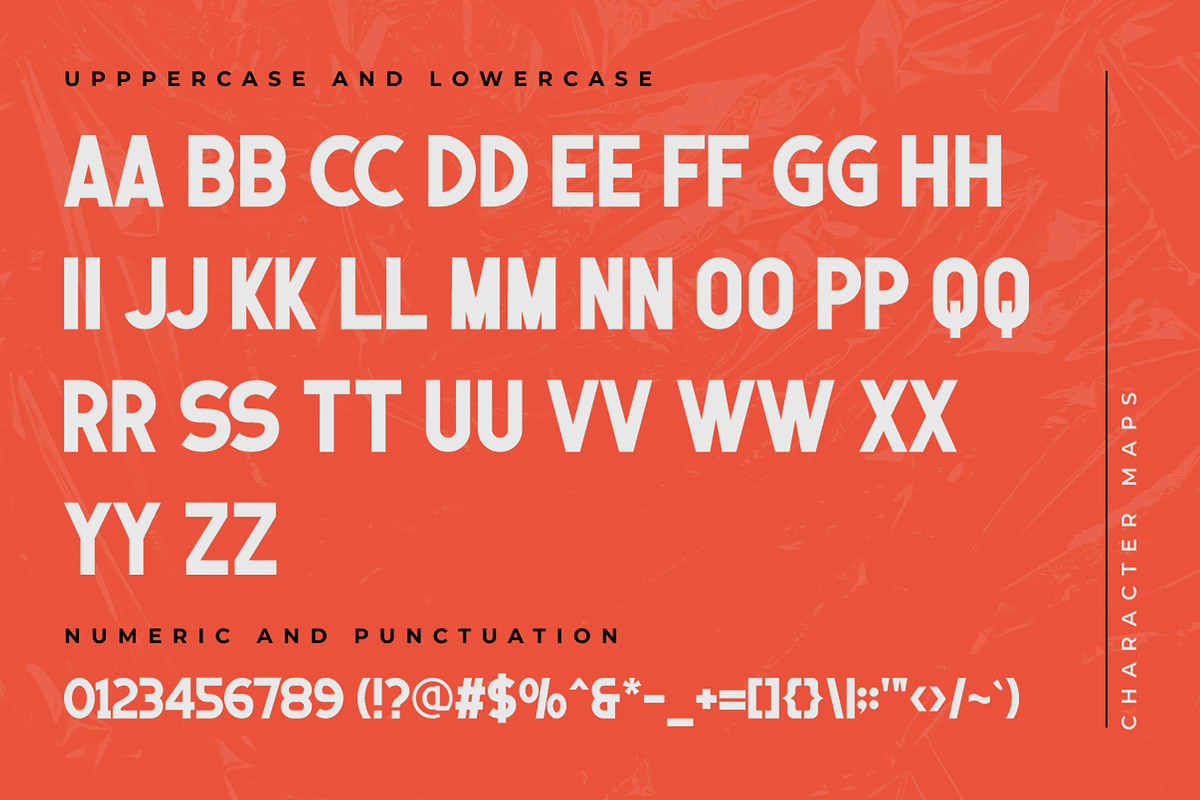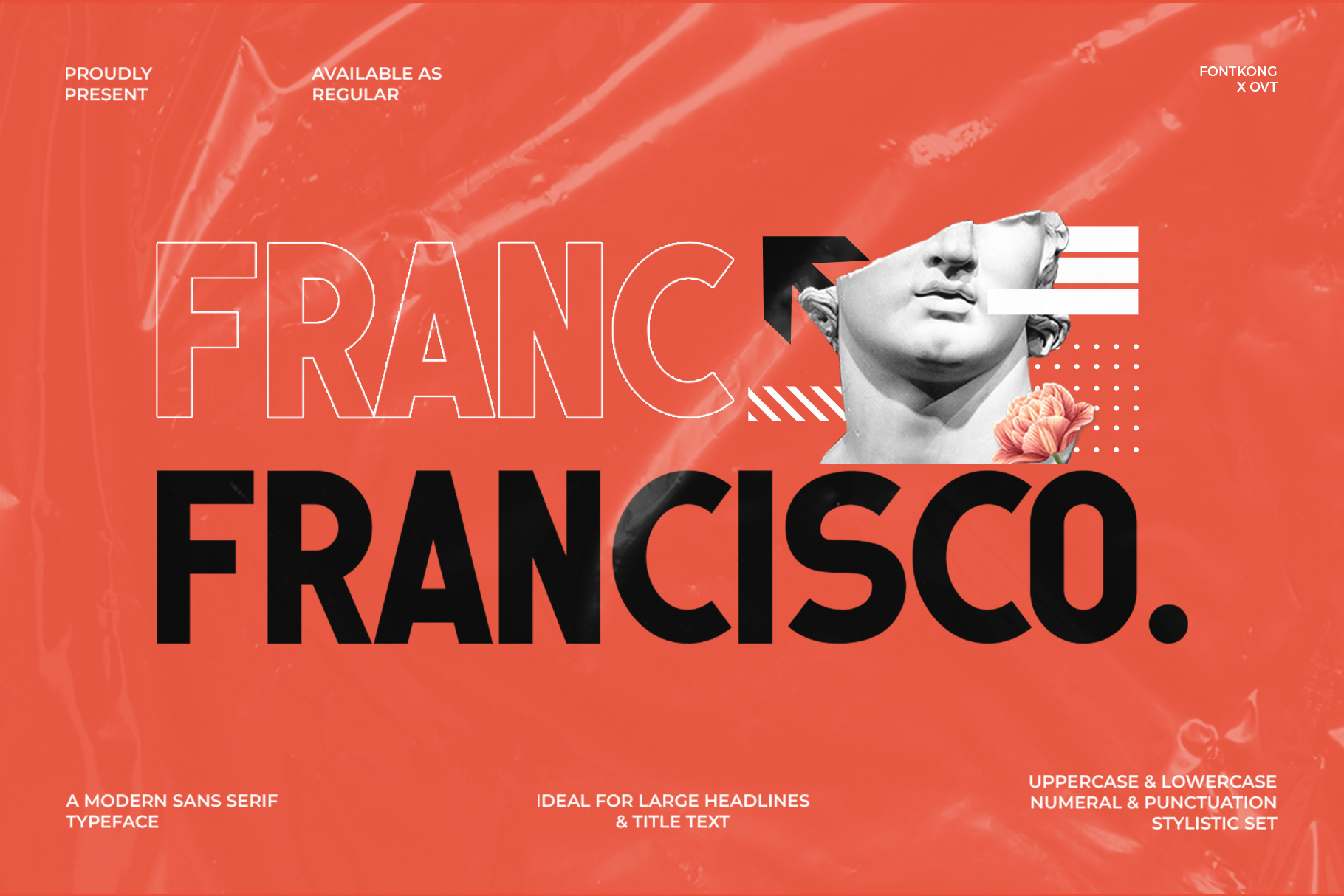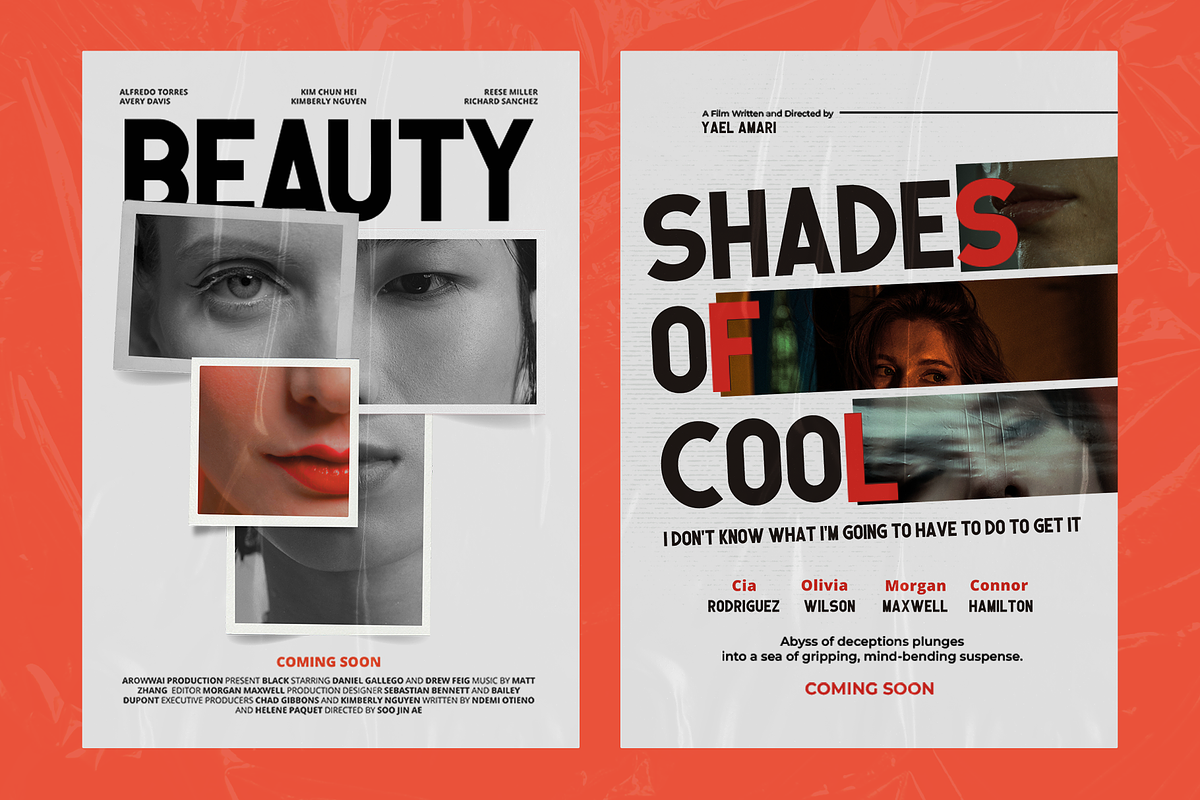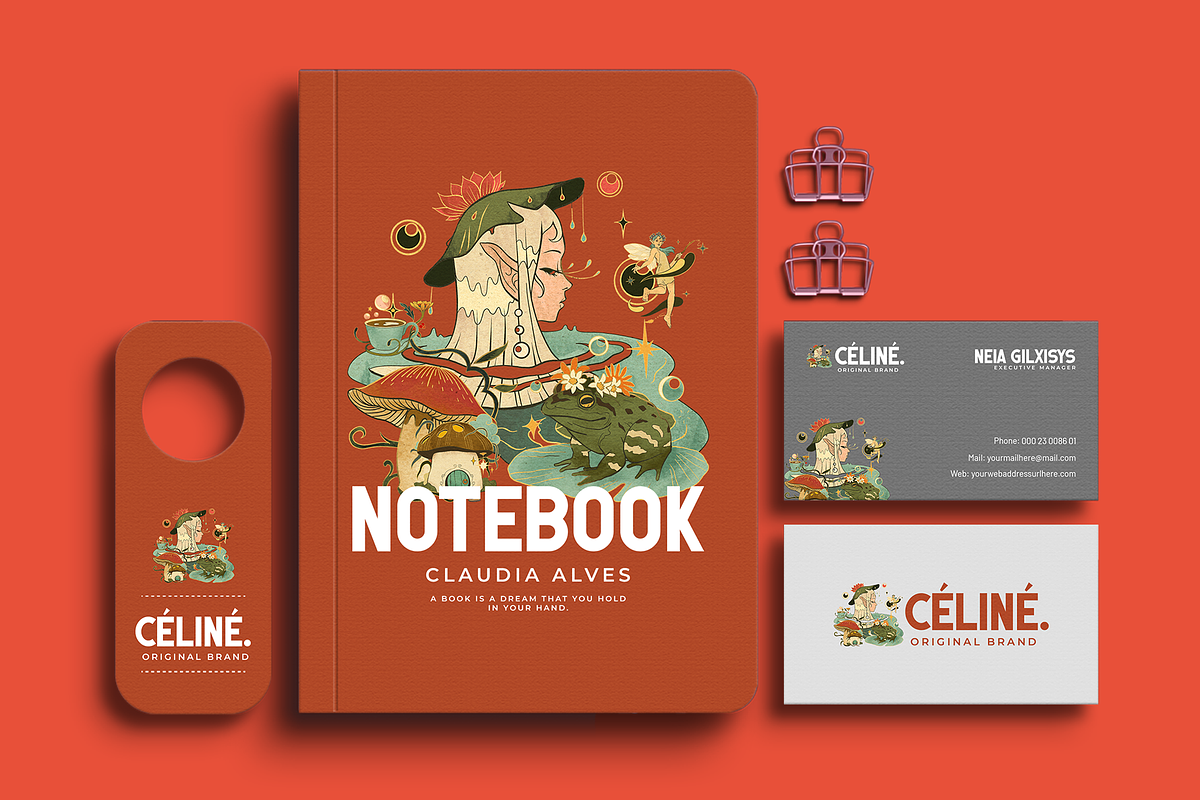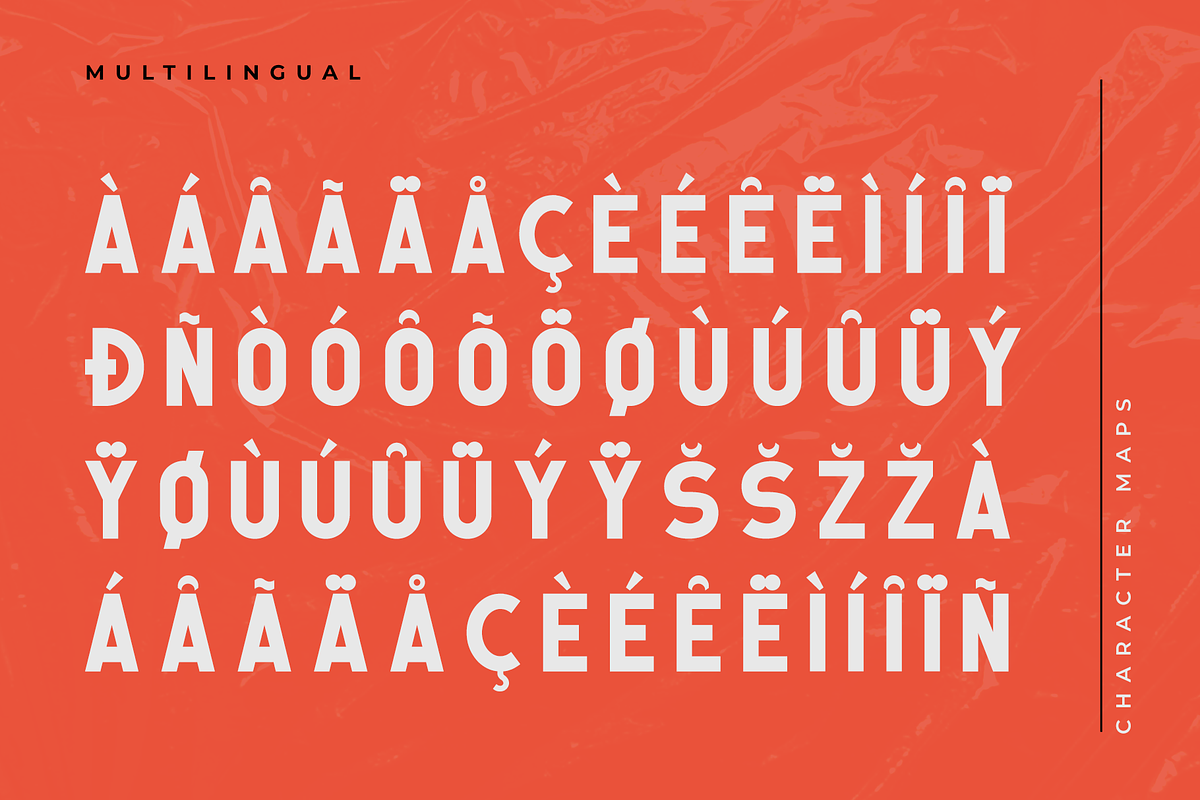
Francisco-Modern Sans Serif Typeface
Francisco - Modern Sans Serif Typeface
Introducing "Francisco," a modern sans serif typeface that embodies effortless elegance and contemporary versatility. Perfect for graphic designers, typographers, and creatives looking for a clean and adaptable typeface, Francisco offers a refined and stylish design that enhances any project with its sleek and modern appeal.
Ideal for branding, editorial layouts, websites, logos, and packaging, Francisco’s streamlined characters provide a professional and sophisticated aesthetic. Each letter is meticulously crafted to ensure clarity and visual appeal, making your designs both elegant and impactful.
The "Francisco" font includes a complete set of uppercase and lowercase letters, numbers, punctuation marks, and special characters. This comprehensive set ensures seamless integration into various design projects, from polished branding to sleek editorial content.
Elevate your designs with Francisco, the modern sans serif typeface that combines effortless elegance with contemporary versatility.